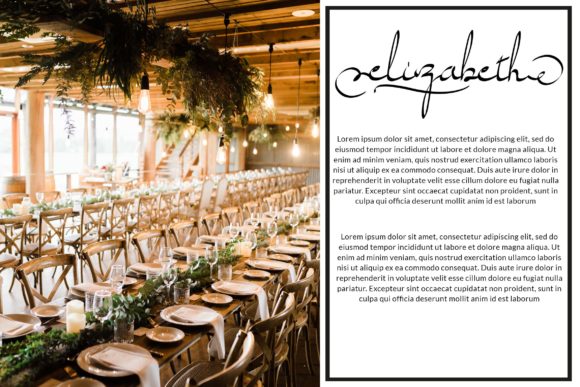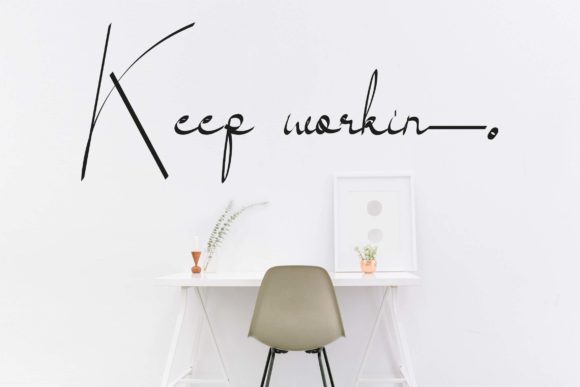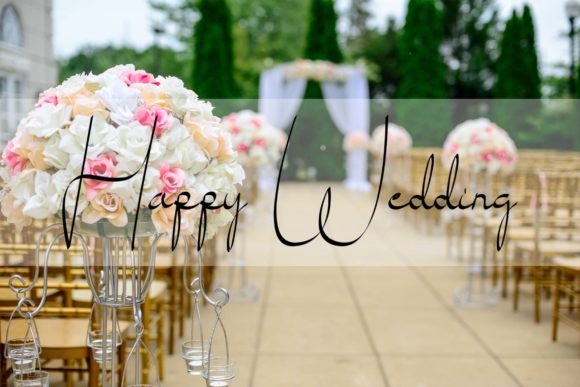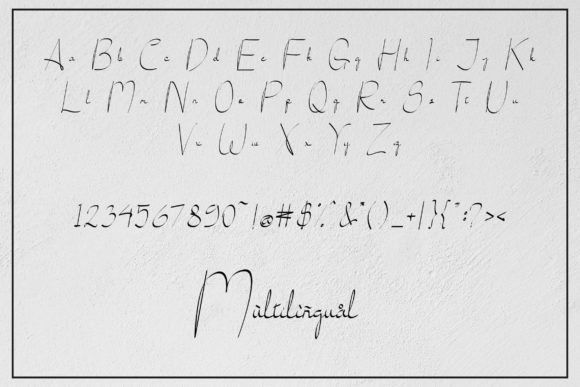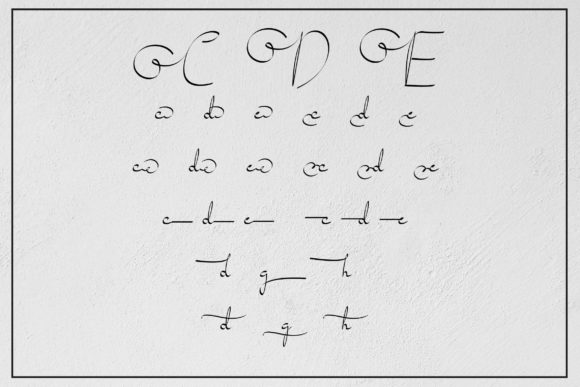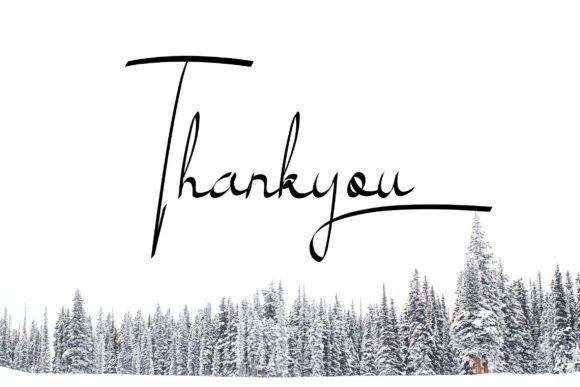
HomeScript FontsTaylilla Font Script Fonts Taylilla Font FacebookXPinterestWhatsApp Taylilla Font Poster 2 Taylilla Font Poster 3 Taylilla Font Poster 4 Taylilla Font Poster 5 Taylilla Font Poster 6 Taylilla Font Poster 7 Taylilla Font Poster 8 About Taylilla Font Taylilla is a timeless calligraphic font that has a soft, yet elegant feel. DOWNLOAD ON CREATIVE FABRICAThis font is sold and delivered by Creative Fabrica. Font Canyon may earn a commission if you buy through this link. People also explored Aukarin Font Sivar Font So Much Glitter Calligraphia Latina Font Royal Romain Tiara Font Kube Font Doffter Font Madison Script Font 367 0 TagsTaylilla Font Previous articleWilliamson FontNext articleKarlust Font LEAVE A REPLY Cancel reply Comment: Please enter your comment! Name:* Please enter your name here Email:* You have entered an incorrect email address! Please enter your email address here Website: Save my name, email, and website in this browser for the next time I comment. Personal Use Free Vincent Familiante Personal Use Free Read more about this font Earwig Factory Personal Use Free Read more about this font Rheiborn Personal Use Free Read more about this font Splatter Splash Personal Use Free Read more about this font BLOG How to Install and Use Fonts on Windows, macOS, and Web Projects How to Install and Use Fonts on Windows, macOS, and Web Projects Fonts are a crucial part of design and branding. Whether you’re designing a... To increase your work productivity, choose the most readable fonts. 5 Fonts That Will Dominate Design Trends in 2026 How to Cut Any Font on Cricut: Convert a Font to SVG (Free)